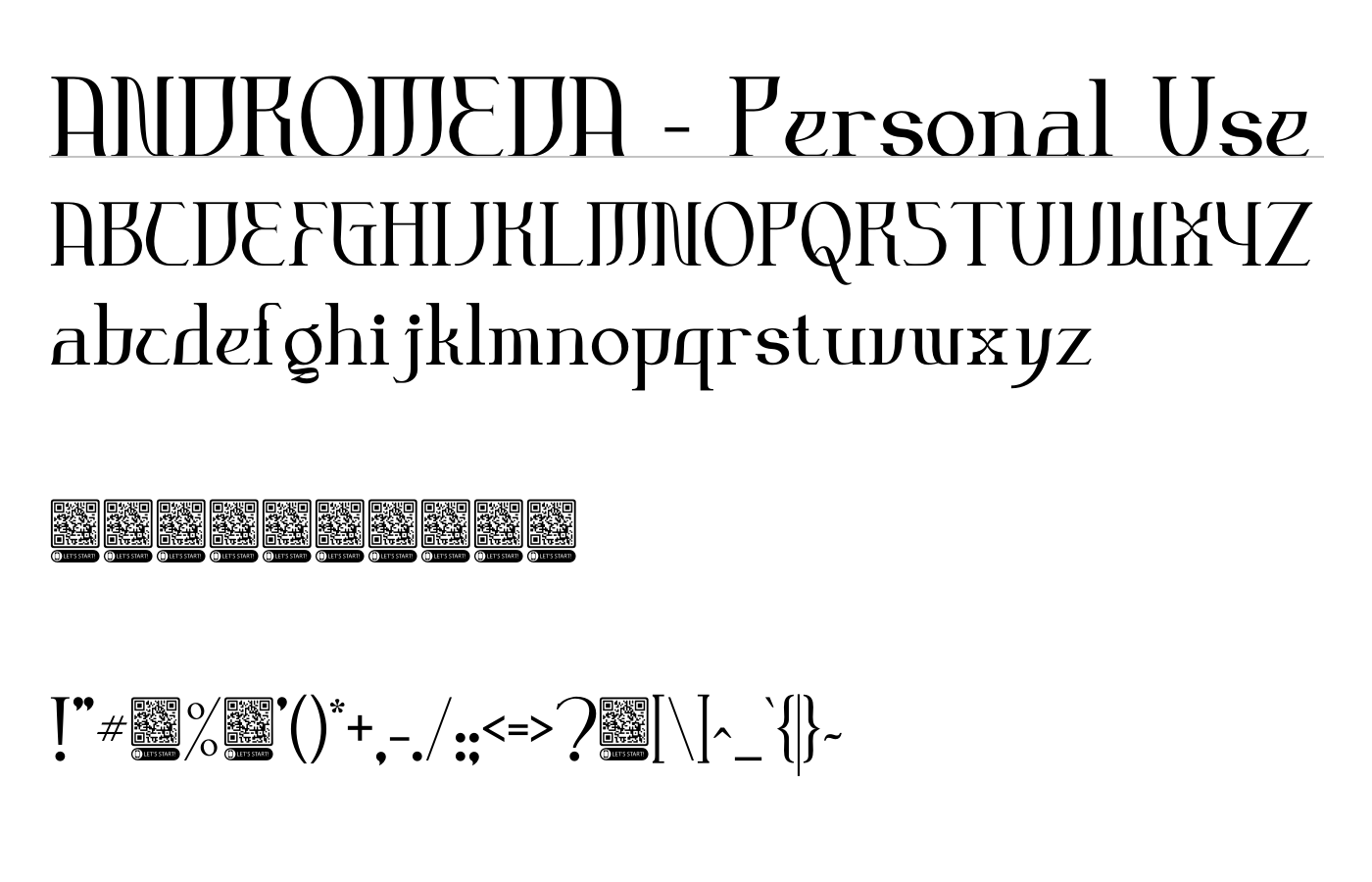
ANDROMEDA is a unique serif font with a modern gothic flair, featuring tall, narrow letterforms and high contrast between thick and thin strokes. Its elegant and slightly playful design, with distinctive letter shapes and delicate serifs, makes it ideal for creative headlines, branding, and editorial projects that seek a blend of sophistication and artistic flair. This font works particularly well where a strong, stylish impression is needed without sacrificing readability.
ANDROMEDA - Personal Use Font
About ANDROMEDA - Personal Use Font